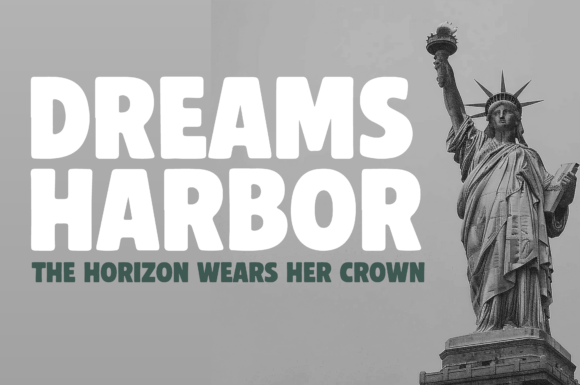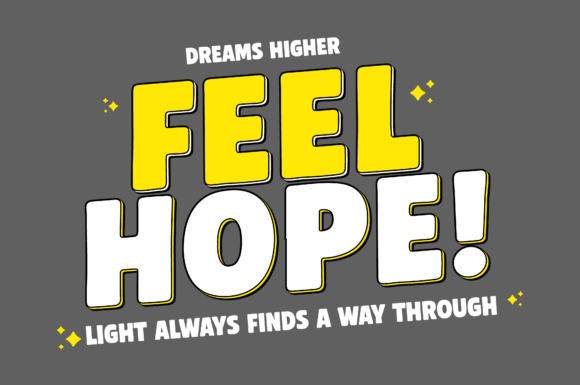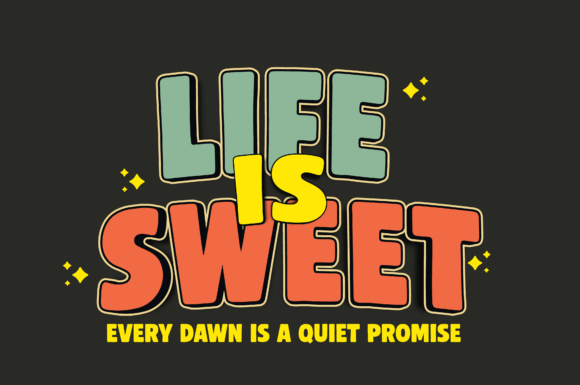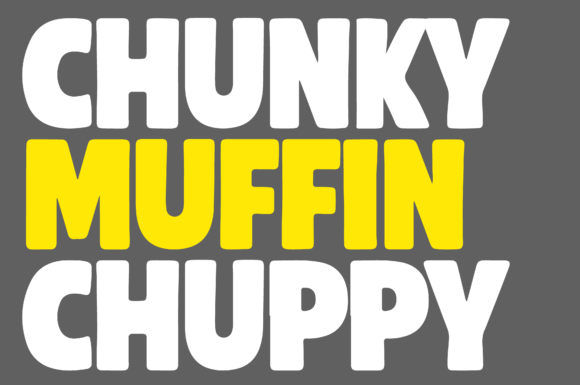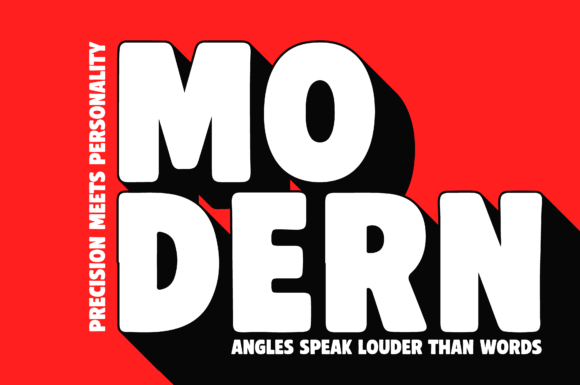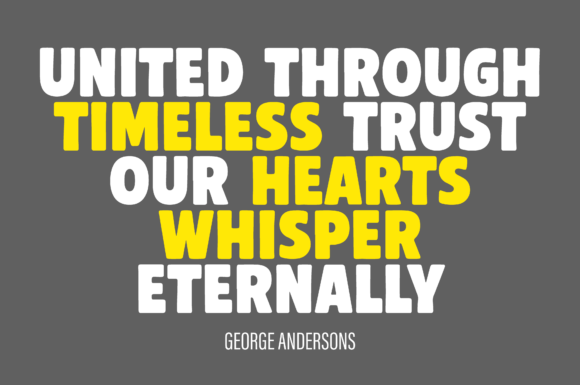
Introduction to Muffin Font
Have you ever stared at a blank design canvas, trying to decide on the perfect font to bring your creative project to life? For designers, finding the right font can be a daunting task, but what if we told you there’s a font that can make your text pop with irresistible personality?
Meet Muffin Font, the bold, chunky, and minimalist sans serif font designed to deliver maximum impact while maintaining a clean, minimalist vibe. Its thick, chunky letters are perfect for logos, headlines, posters, packaging, social media graphics, and modern branding projects. With two versatile styles to choose from, Muffin Font gives you the creative flexibility to match your vision.
As a valuable design resource, Muffin Font is available for free download, making it an excellent choice for designers who want high-quality typography without the hefty price tag. With its rounded edges and geometric proportions, this font is a must-have for anyone looking to add a touch of style and personality to their designs.
- Designed with a unique aesthetic, Muffin Font is ideal for designers looking for a distinctive typographic style.
Honest Review: Muffin Font
As a designer, I’m always on the lookout for high-quality design resources to elevate my creative projects. I recently had the chance to try out the Muffin Font, and I must say, it’s a great addition to my collection.
- ✨ The font is available in various weights and styles, making it versatile for a range of creative projects.
Overall, I’m impressed with the Muffin Font. It’s a great design resource that’s perfect for personal or small-scale creative projects. The high-quality design and transparent background feature make it a valuable addition to any designer’s toolkit. While there are some limitations to consider, I’d definitely recommend giving it a try.
For optimal results, use Muffin Font with a high-contrast background to make the text stand out. Experiment with different font sizes and combinations to add visual interest to your design.
Muffin Font is perfect for a variety of design projects, including food blogs, fashion brands, and lifestyle magazines. Its unique style and transparent background make it a valuable design resource for creative professionals.